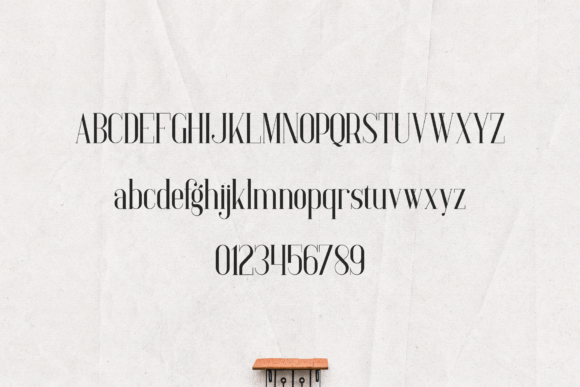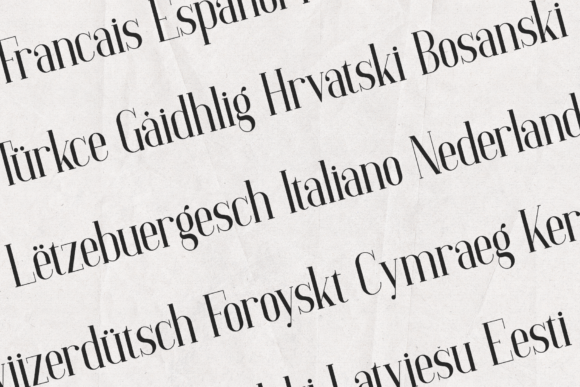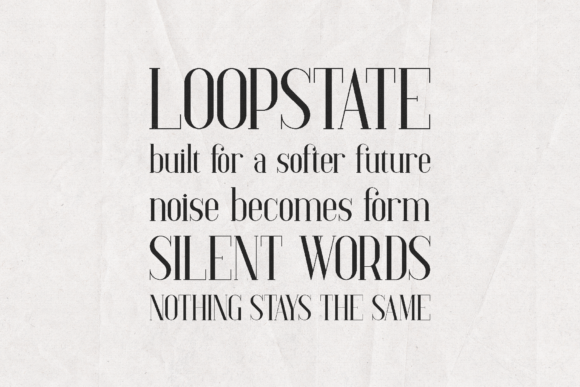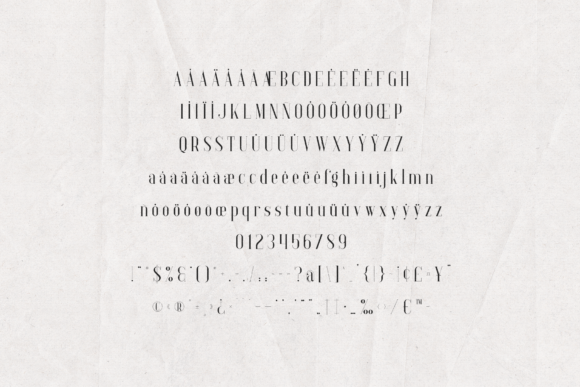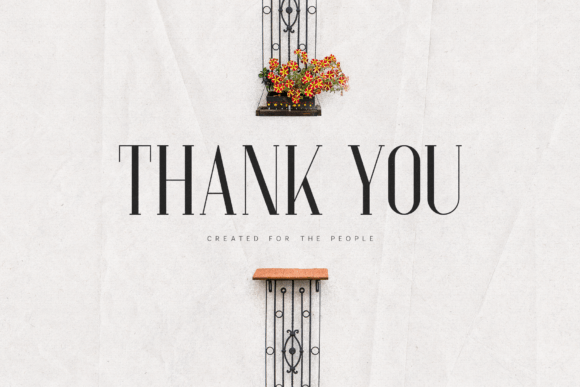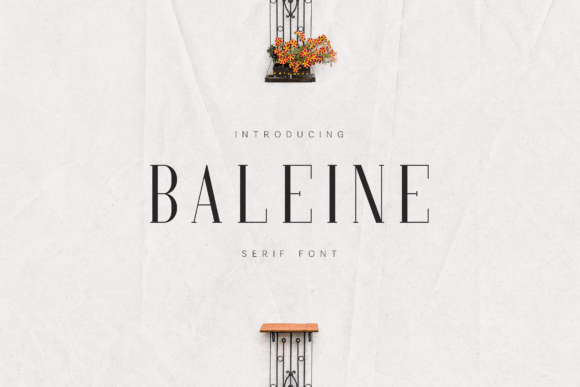
Baleine Font: Elevate Your Design with Elegance and Readability
In the world of typography, a well-crafted font can make all the difference in elevating your design to new heights. Introducing Baleine, an elegant modern serif font that embodies clarity, balance, and refined simplicity. Designed to deliver a calm, confident typographic voice, Baleine is the perfect choice for designers and crafters seeking a sophisticated and versatile font for their projects.
The Essence of Baleine
Baleine boasts clean letterforms, graceful contrast, and well-proportioned strokes that work in harmony to create a timeless yet contemporary aesthetic. This elegant font is ideal for editorial design, magazines, branding, book covers, posters, packaging, and sophisticated layouts where elegance and readability are paramount. Whether you’re looking to make a statement or convey a sense of refinement, Baleine excels in delivering a premium look without feeling ornamental or heavy.
Key Features of Baleine
- Clean and Elegant Design: Baleine’s structured forms and subtle details create a sophisticated look that’s perfect for designs that require a touch of elegance.
- Versatile and Readable: This font performs beautifully in both headlines and short body text, making it an excellent choice for modern design systems.
- Multilingual Support: With extensive multilingual support, Baleine is suitable for professional and international use, allowing designers to create content for a global audience.
- Comprehensive Character Set: The font includes uppercase and lowercase letters, numerals, punctuation, symbols, and more, ensuring that you have everything you need to create stunning designs.
Pairing Baleine with Other Fonts
Baleine pairs naturally with minimalist sans serifs, allowing designers to build refined, editorial-driven compositions with ease. This versatility makes it easy to incorporate Baleine into your existing design workflow, creating a harmonious balance between serif and sans serif fonts.
Applications of Baleine
Baleine’s range of applications is vast, making it an excellent addition to any designer’s toolkit. Some of the ideal uses for Baleine include:
- Editorial Design: Magazines, newspapers, and online publications will benefit from Baleine’s elegant and readable design.
- Branding: Create a lasting impression with Baleine’s sophisticated and premium look, perfect for luxury brands and high-end products.
- Book Covers: Baleine’s classic and timeless design makes it an excellent choice for book covers, adding a touch of elegance to any title.
- Posters and Packaging: Make a statement with Baleine’s bold and refined design, ideal for posters, packaging, and other marketing materials.
Why Choose Baleine?
In a world where typography plays a crucial role in design, Baleine stands out as a shining example of elegance and readability. With its refined simplicity, clean letterforms, and versatile design, Baleine is the perfect choice for designers and crafters seeking a sophisticated serif font. Whether you’re looking to elevate your design, create a lasting impression, or simply add a touch of elegance, Baleine is the ideal choice.
In conclusion, Baleine is a game-changing font that will revolutionize the way you approach typography. Its unique blend of elegance, readability, and versatility makes it an essential tool for any designer or crafter. So why wait? Discover the power of Baleine and take your design to new heights.